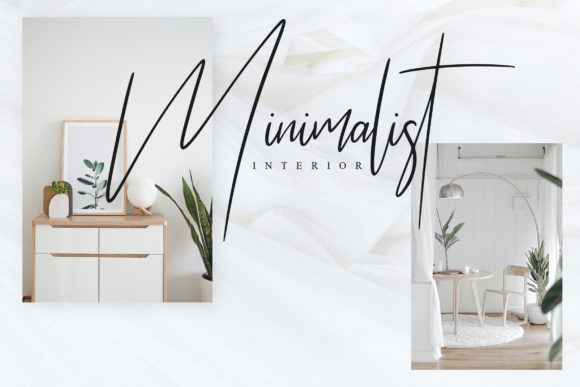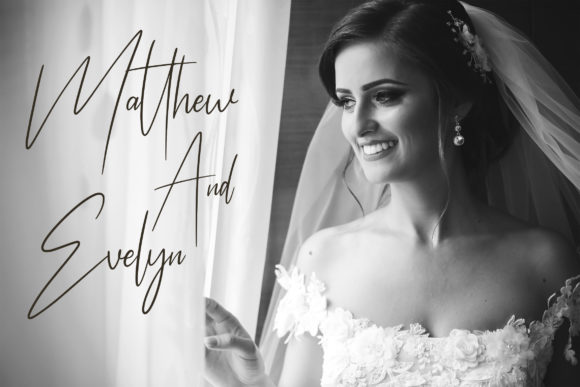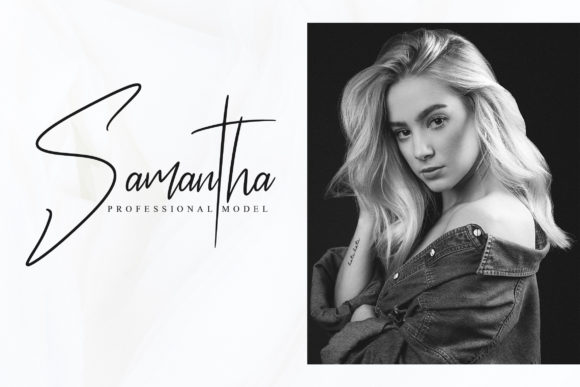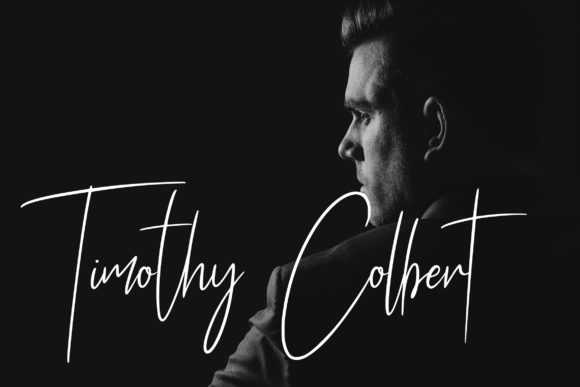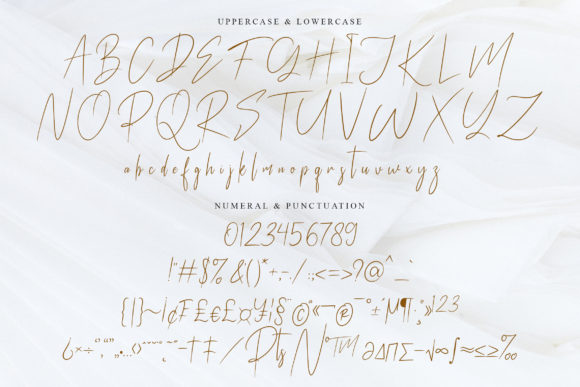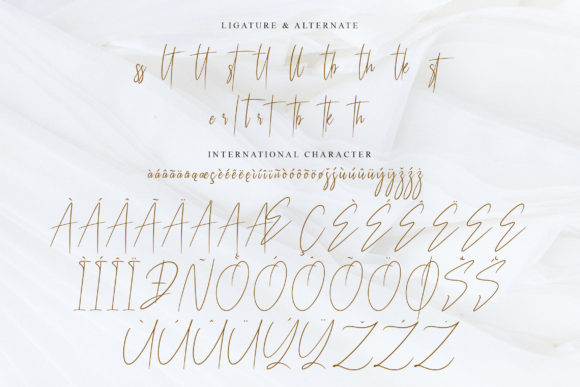
Introduction to Mastherikur Font
Have you ever sat in front of your computer, staring blankly at a blank canvas, desperately searching for the perfect font to bring your creative project to life? It’s a feeling we’ve all been there, designers. The search for that one elusive font that captures the essence of our vision can be a daunting task.
But what if I told you that your search is over? Enter the stunning Mastherikur Font, a modern and timeless handwritten font that’s set to revolutionize the world of design. With its varying baseline, smooth lines, gorgeous glyphs, and stunning alternates, this font is a true masterpiece that’s sure to elevate any creative project.
Key Features of Mastherikur Font
- High-quality, unique font design ideal for creative projects, offering a distinct visual identity.
- Perfect for designers, artists, and content creators seeking a distinctive and professional font for their work.
Honest Review: Mastherikur Font
I recently had the chance to work with the Mastherikur Font, and I must say it’s been a great addition to my design projects. ✨
This font is perfect for anyone looking for a unique and creative way to express themselves in their design work. The Mastherikur Font is highly versatile and can be used for a variety of creative projects, from logos to typography-based designs.
- Unique design: The Mastherikur Font has a distinctive look that sets it apart from other fonts.
- High quality: The font is well-crafted and looks great on both light and dark backgrounds.
While the Mastherikur Font is a great resource, there are a few limitations to keep in mind: ⚠️
- Limited font weights: The font only comes in a few weights, which may limit its use in certain design situations.
- Not ideal for small text: The font’s unique design may make it difficult to read in small text sizes.
Overall, I’m impressed with the Mastherikur Font and would recommend it to anyone looking for a unique and creative design resource.
Tips for Getting the Most Out of Mastherikur Font
To get the most out of the Mastherikur Font, use it in conjunction with other design resources, such as free downloads and high-quality images. Experiment with different font sizes and styles to add visual interest to your designs.
The Mastherikur Font is perfect for a variety of creative projects, including logos, graphics, and presentations. Its transparent background feature makes it ideal for use in digital designs, and its high-quality features ensure that it looks great in print.
Compared to Mastherikur Font, Great Vibes Font has a more subtle, sophisticated feel. While Mastherikur Font has a bold, playful quality, Great Vibes Font is better suited for projects that require a more refined, high-end aesthetic.